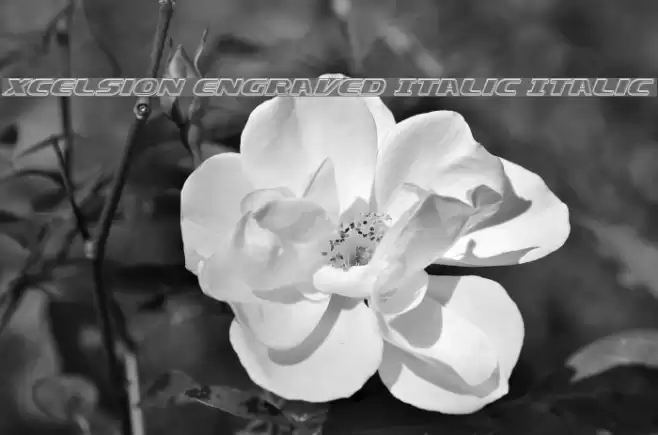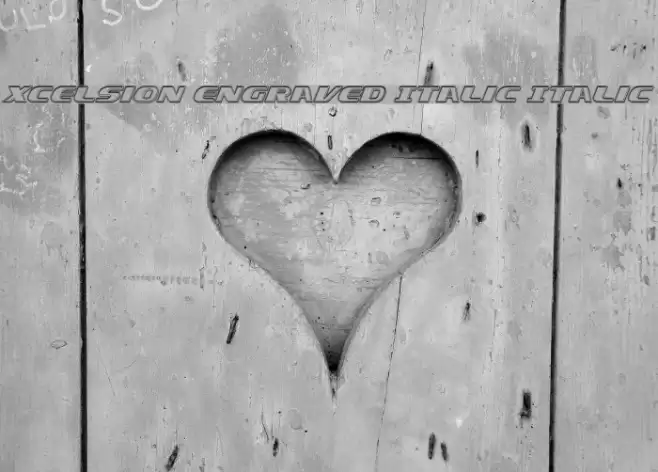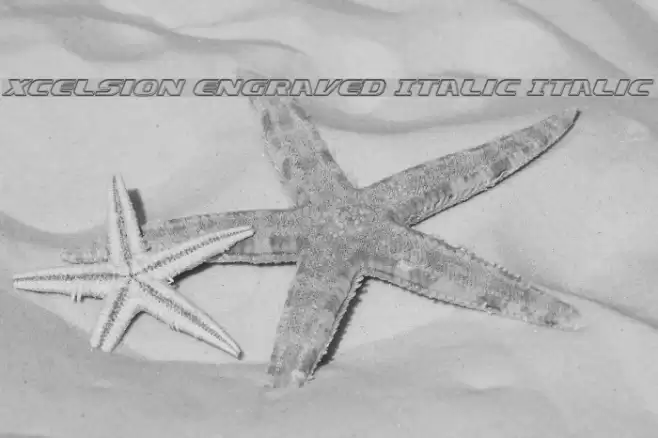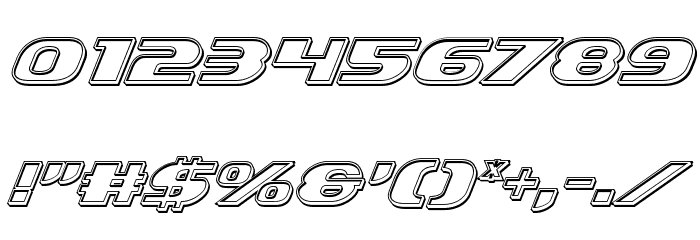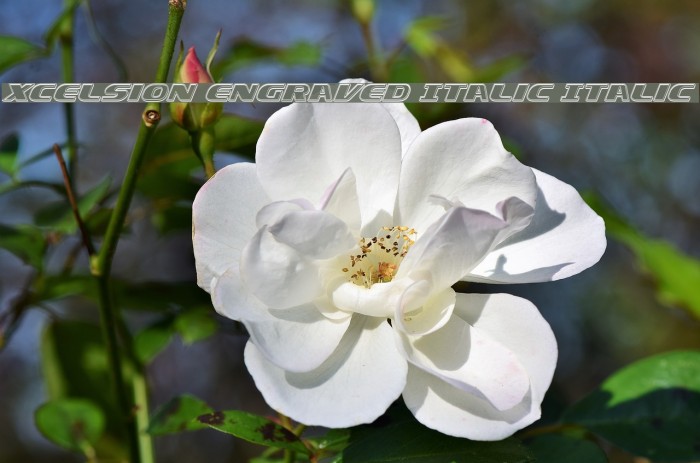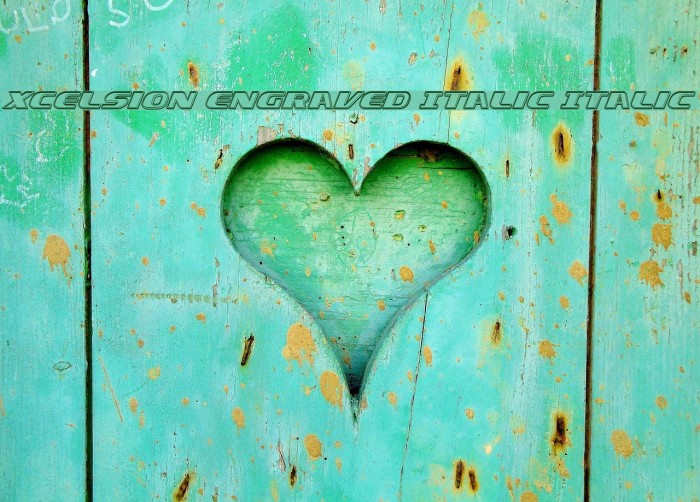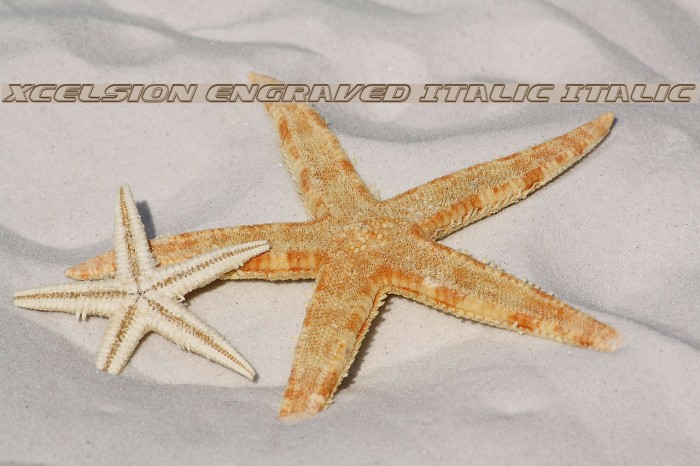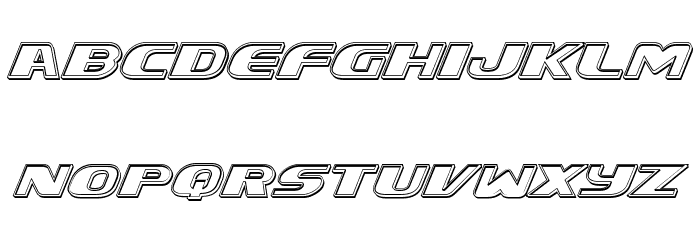
Xcelsion Engraved Italic Italic Font
Xcelsion Engraved Italic Italic Description
This font features a bold, italicized style with an engraved effect, giving it a three-dimensional appearance. The characters are outlined with a double line, creating a sense of depth and sophistication. The uppercase and lowercase letters maintain a consistent style, with the uppercase letters being slightly more prominent. The numbers and special characters follow the same engraved design, ensuring uniformity across all glyphs. The font's italic slant adds a dynamic and forward-moving feel, making it suitable for projects that require a modern and energetic look.
A bold, italicized font with an engraved, three-dimensional effect from Uncategorized fonts.
- Proposed Projects: Ideal for sports branding, dynamic posters, modern logos, and futuristic designs.